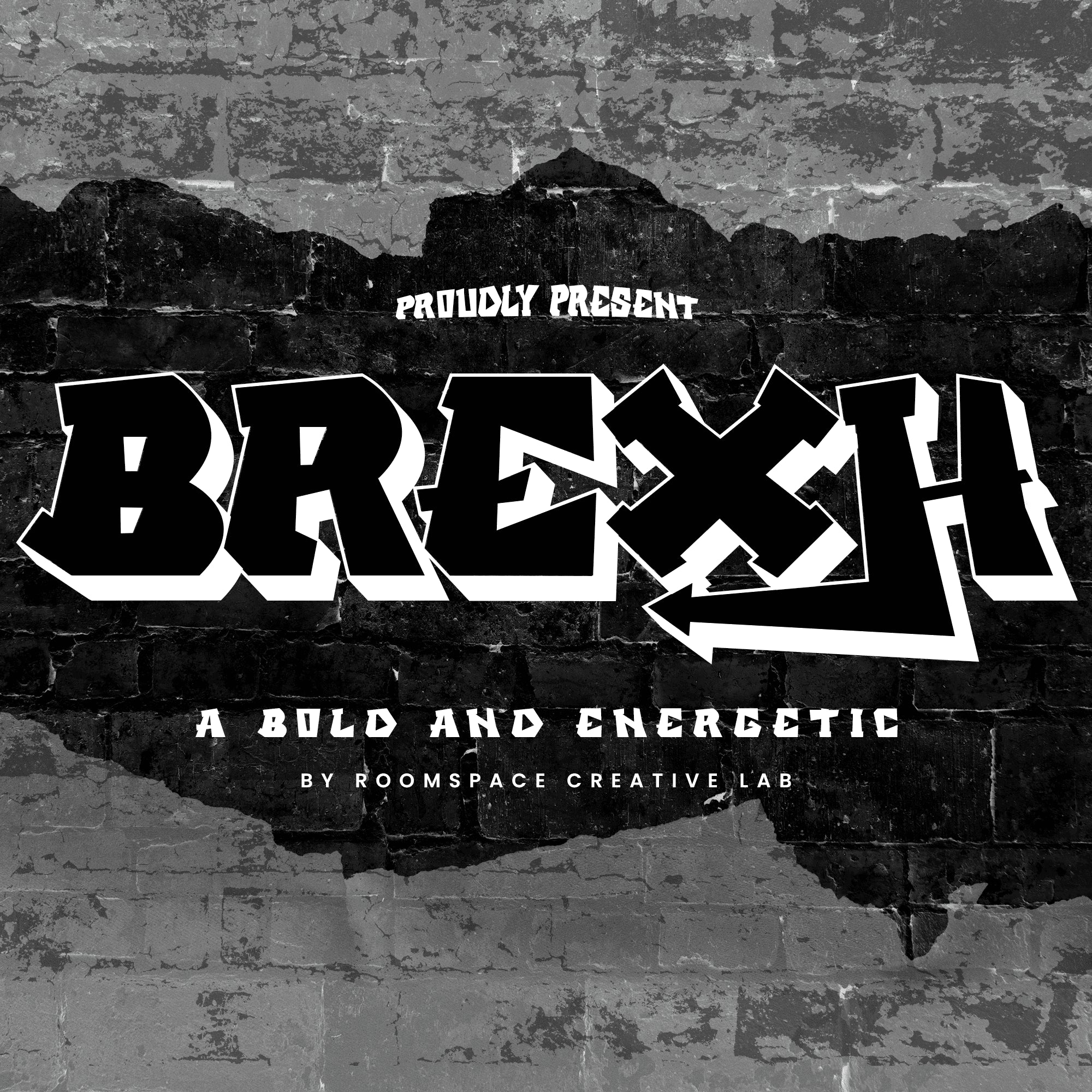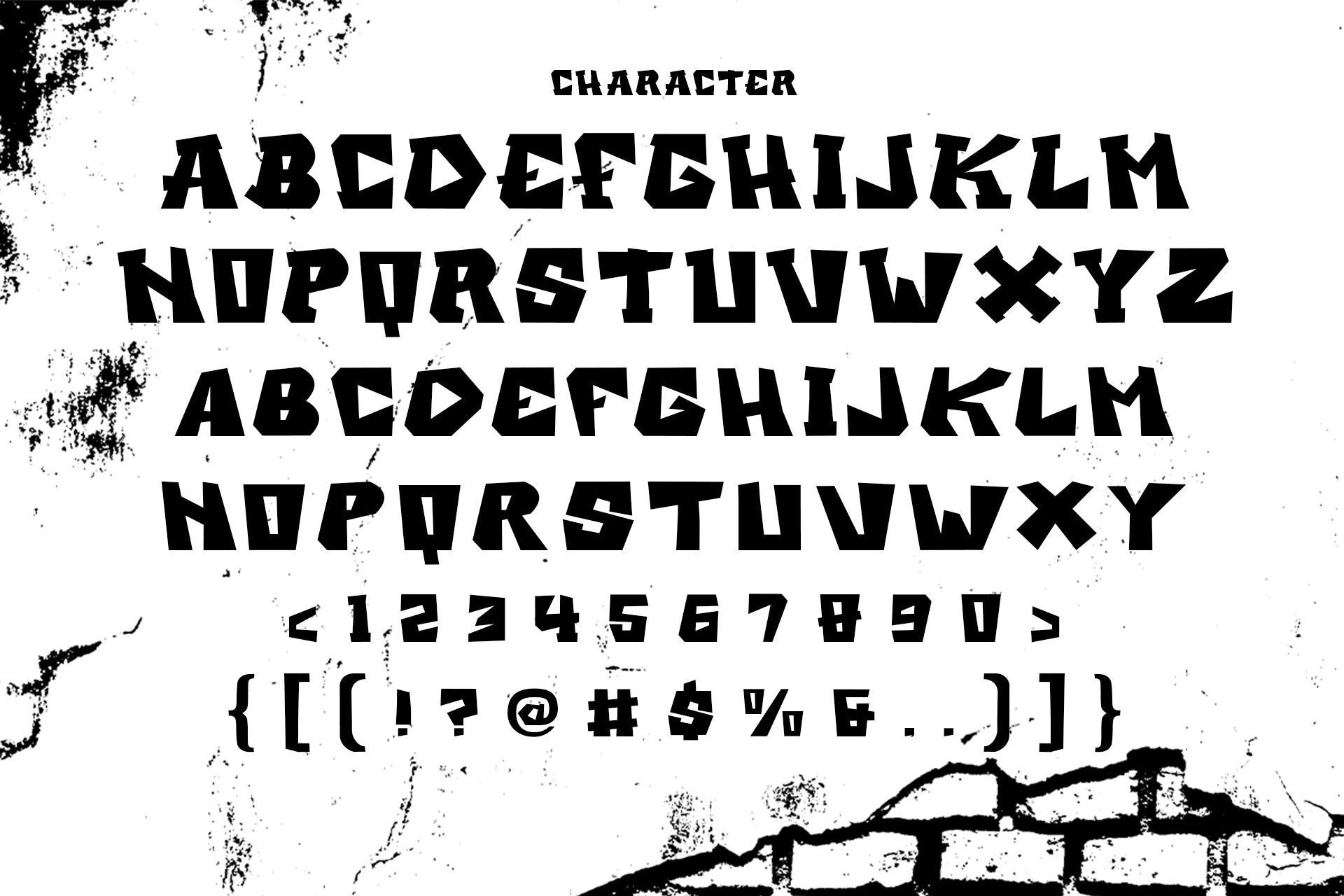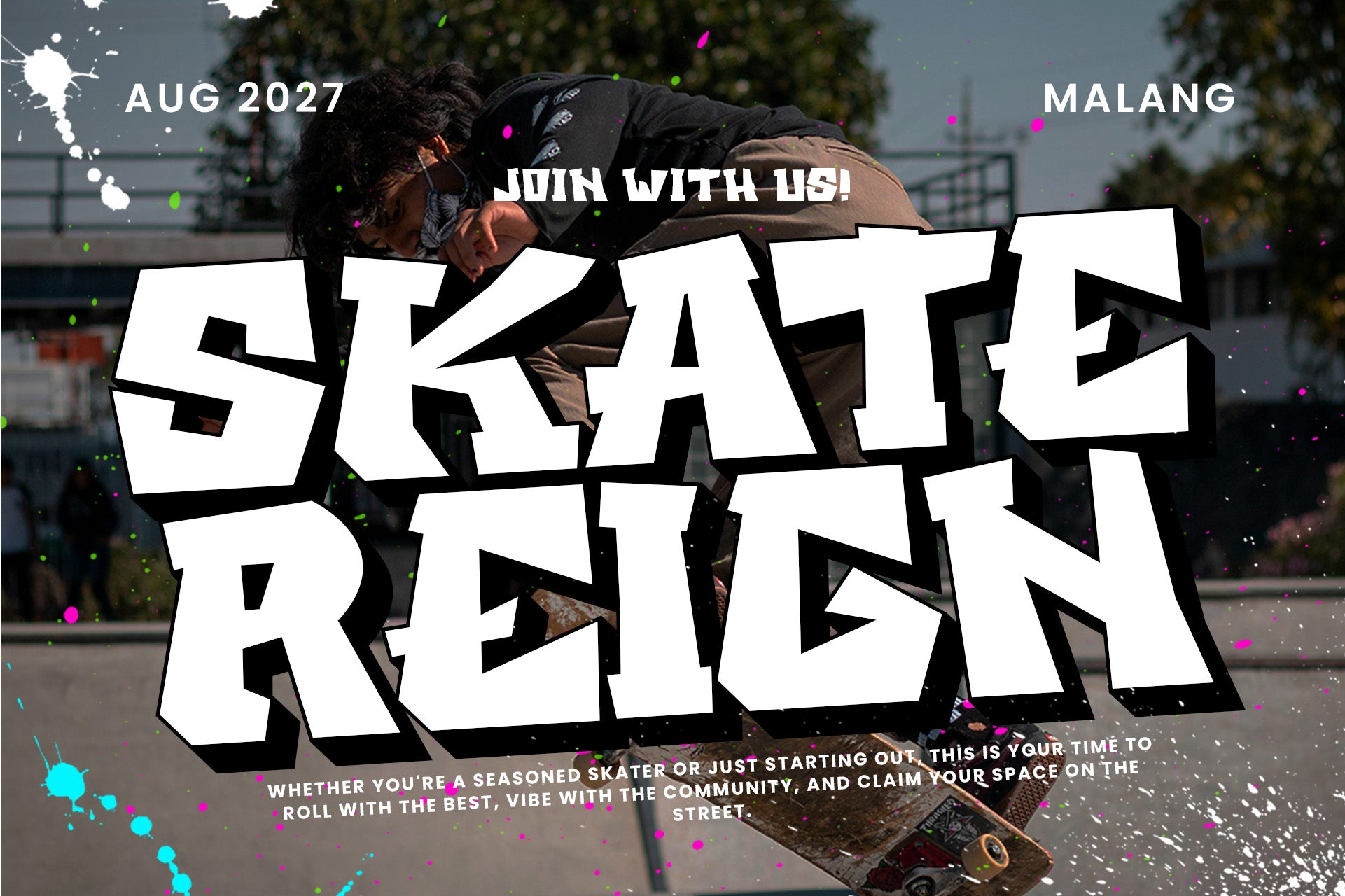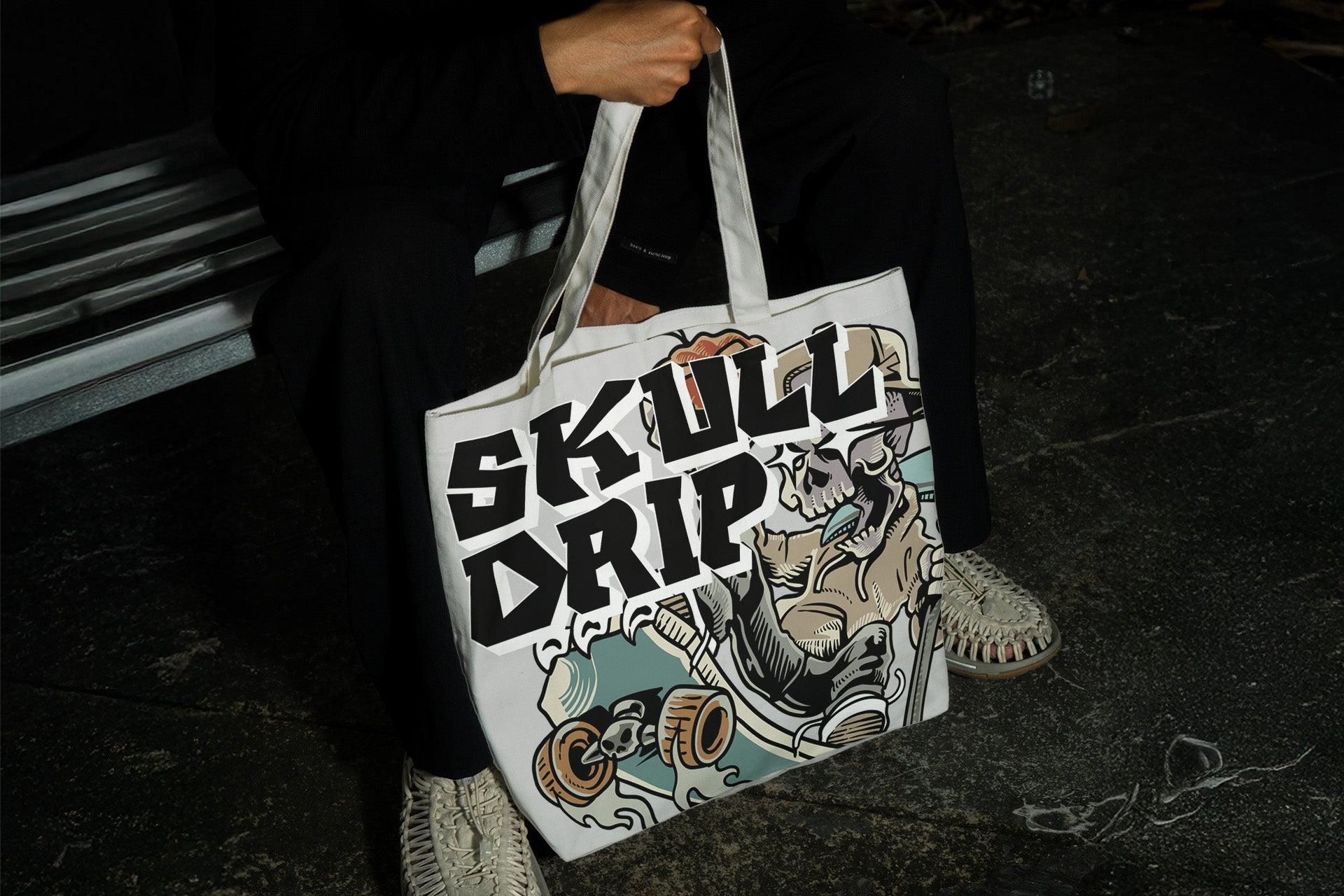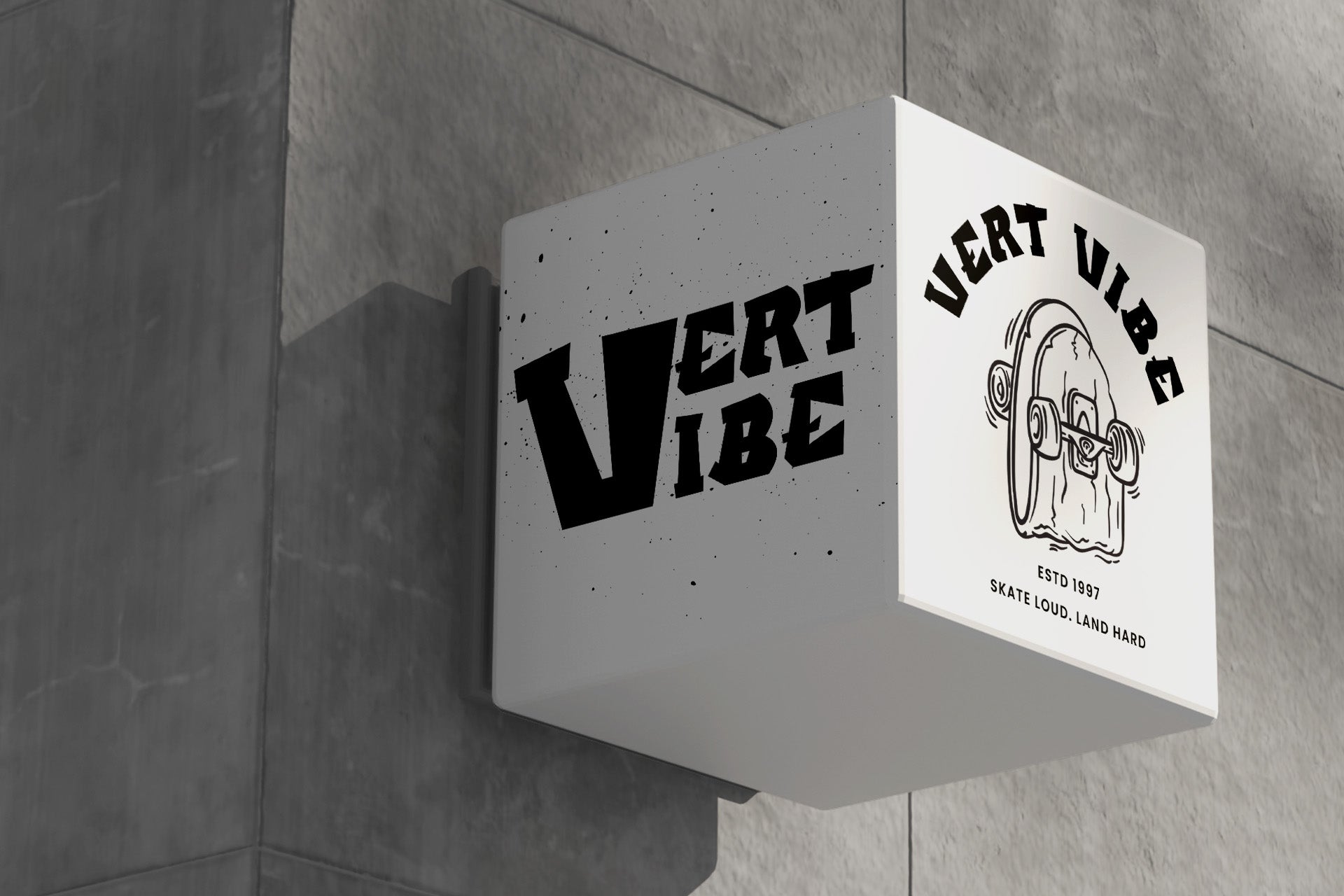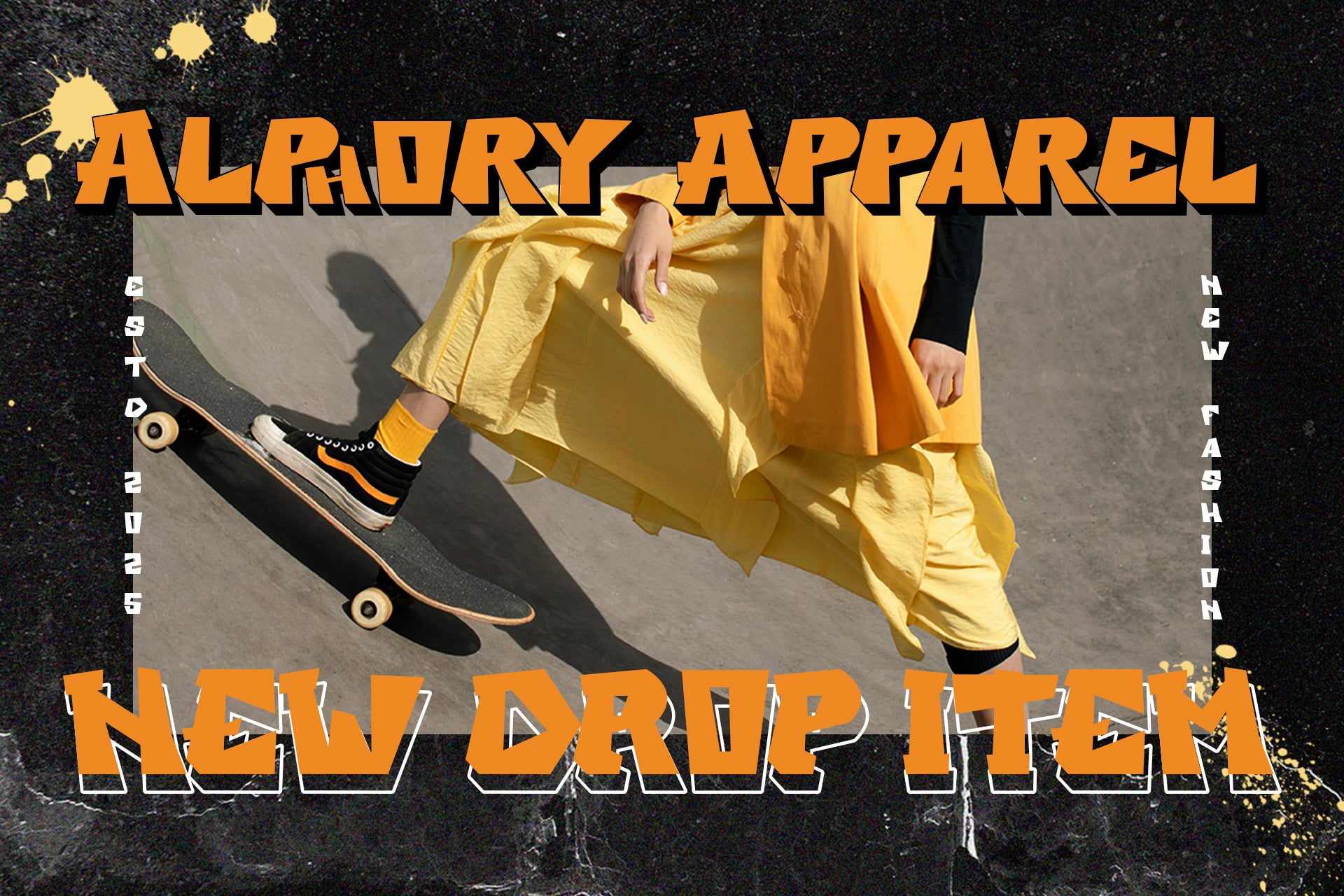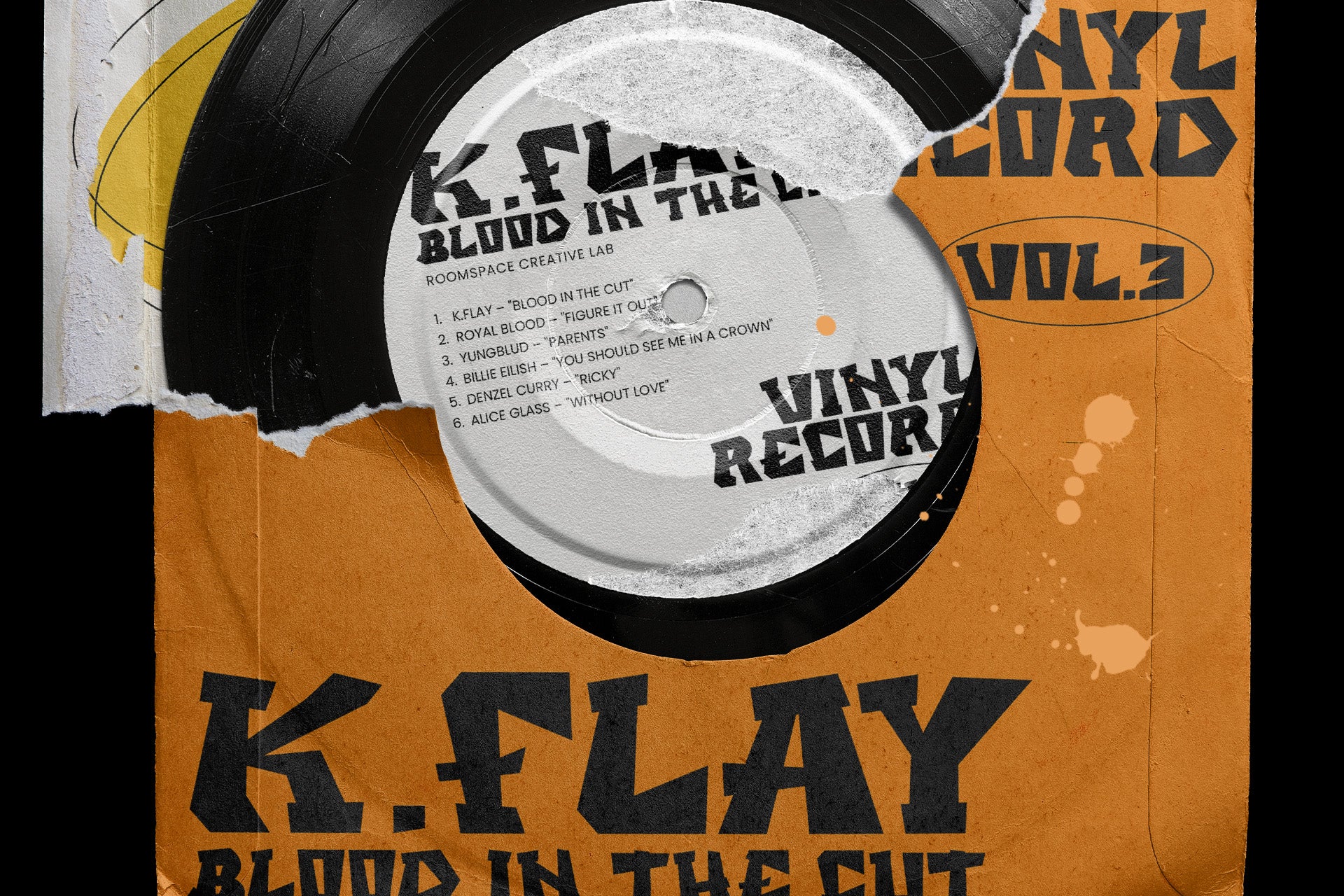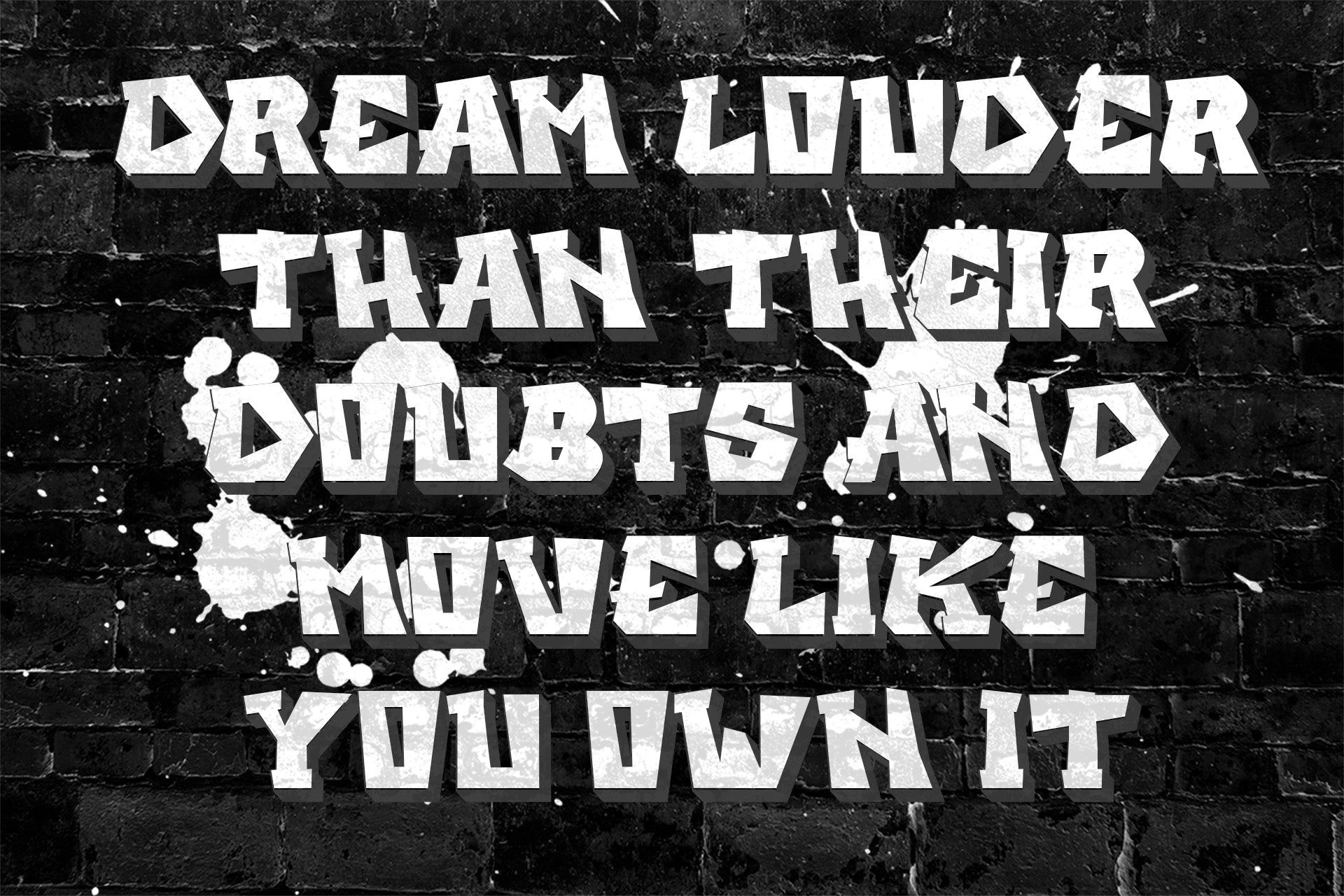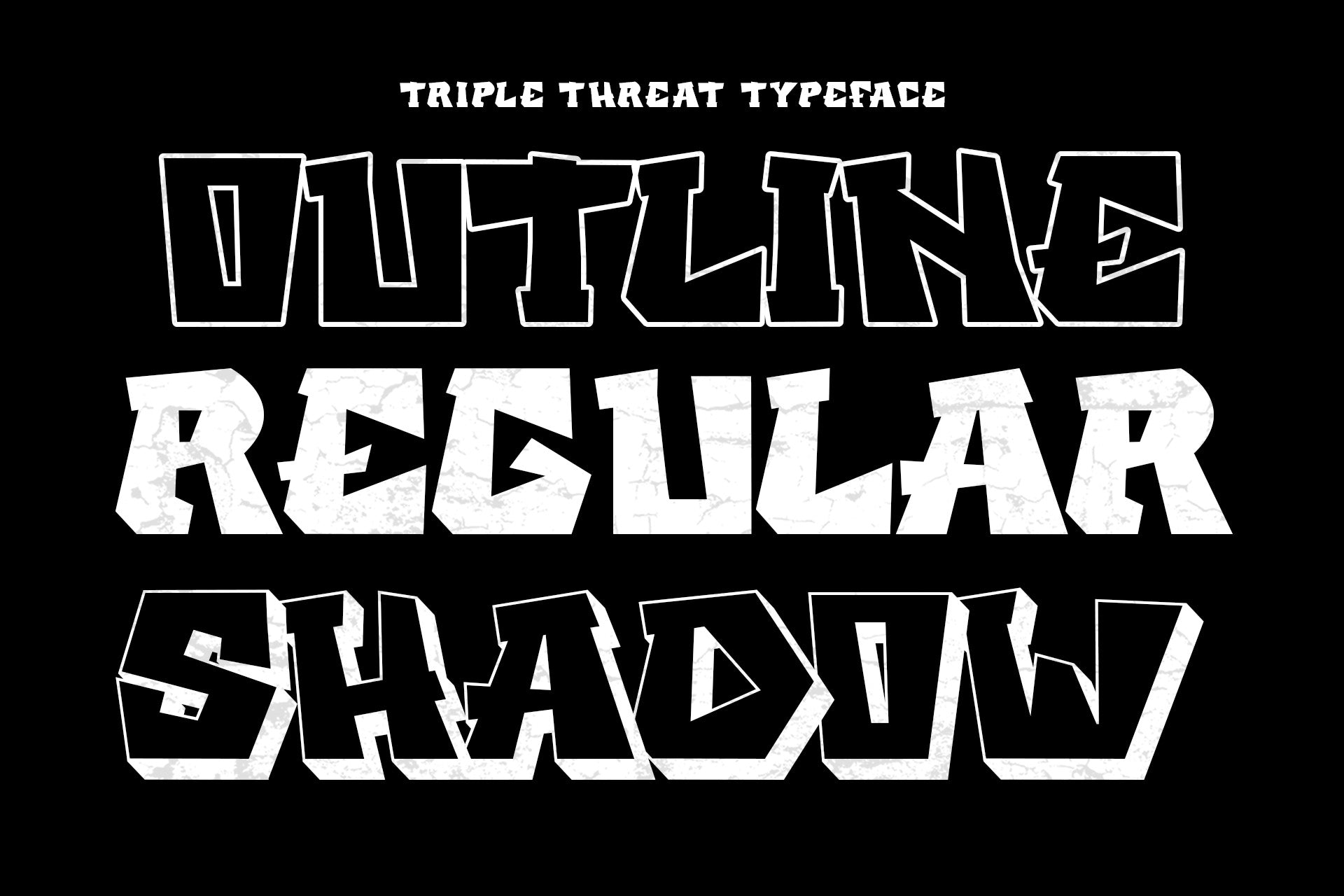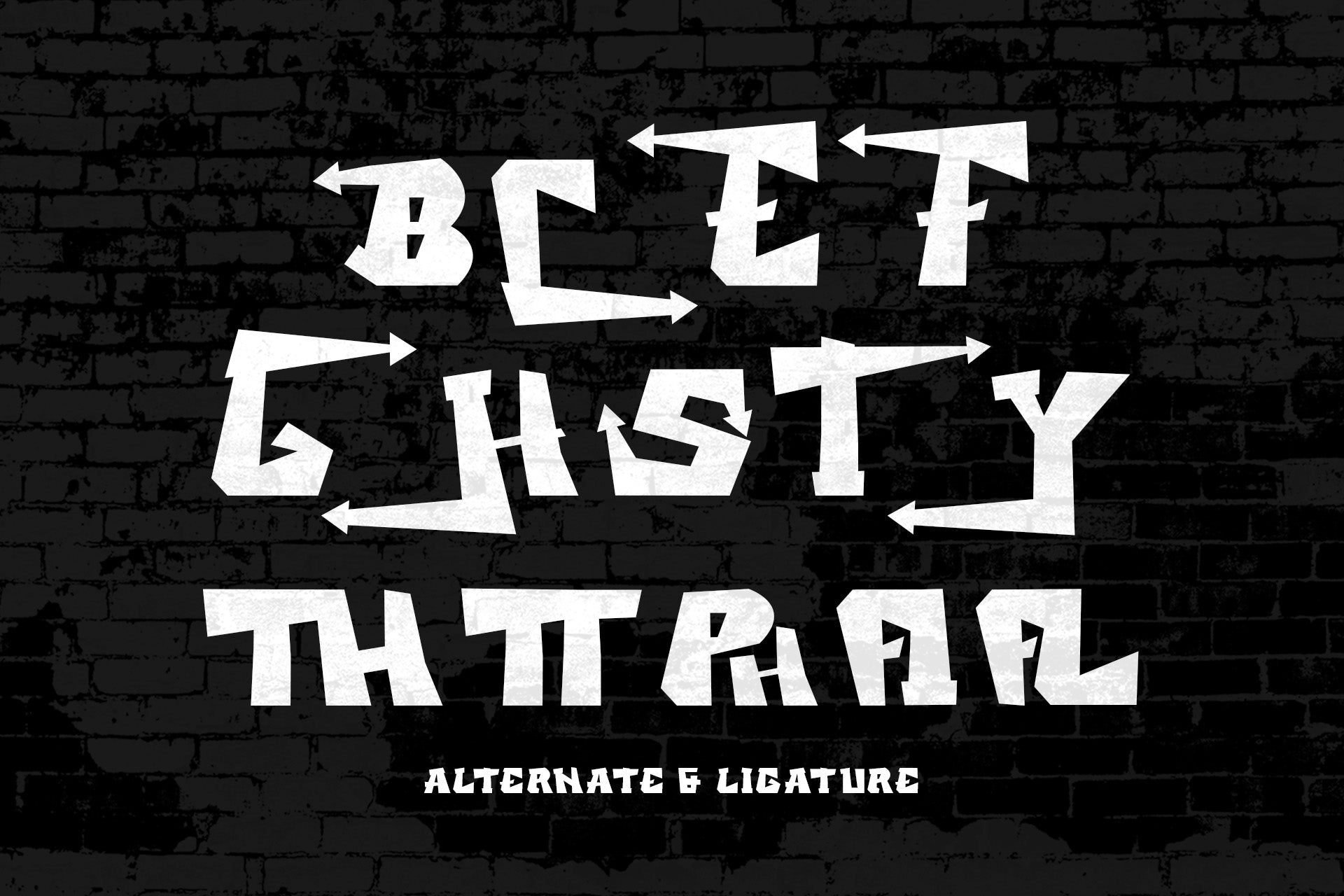
Brexh - Graffiti Sign Street Marker Typeface
Brexh is a bold and energetic graffiti display font that captures the raw power of urban street art. Its chunky, angular forms and aggressive edges make it stand out in any composition. Designed for creators who want to express rebellion, creativity, and confidence, Brexh brings a true street-style attitude to your typography projects. Each letter in Brexh is crafted with attention to structure and movement, offering a perfect balance between chaos and clarity. The font’s thick strokes, tight kerning, and unique outline effect make it ideal for large-scale designs. Whether used flat or with texture overlays, Brexh maintains its strong visual impact and readability across digital or print media. Perfect for graffiti-inspired posters, hip-hop album covers, t-shirt graphics, skate brands, and social media visuals, Brexh adds a fearless and expressive tone to your design. Bring your projects to life with the energy and authenticity of street culture grab Brexh today and make your message impossible to ignore!
Brexh is a bold graffiti display typeface characterized by chunky, angular forms and aggressive edges, designed to convey a street-style attitude. With thick strokes, tight kerning, and a unique outline effect, it offers strong visual impact and readability for various typography projects.